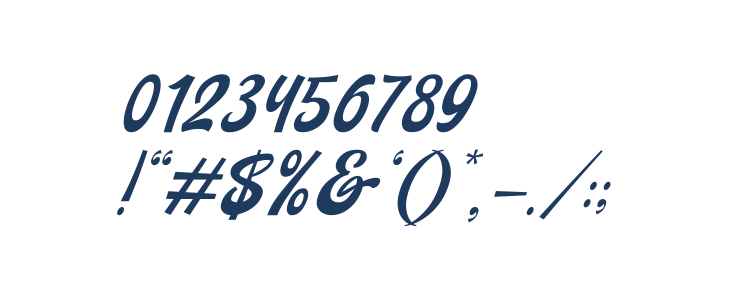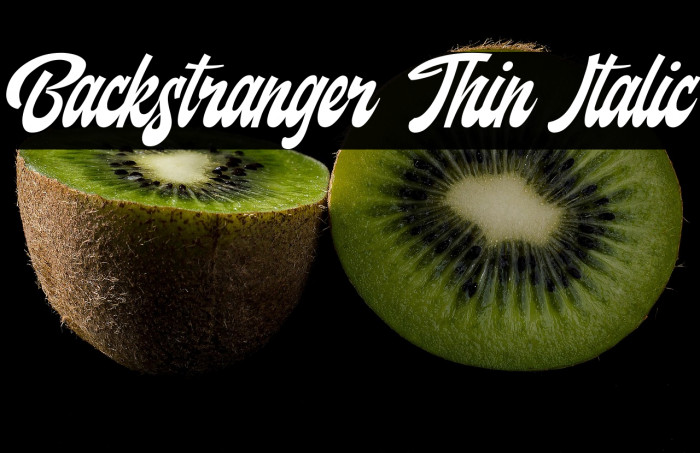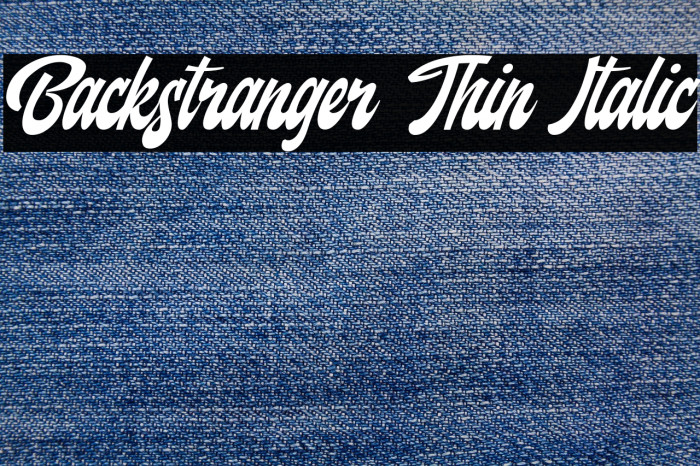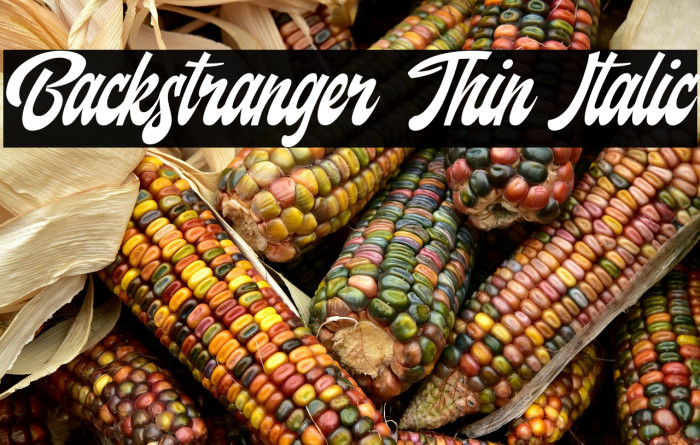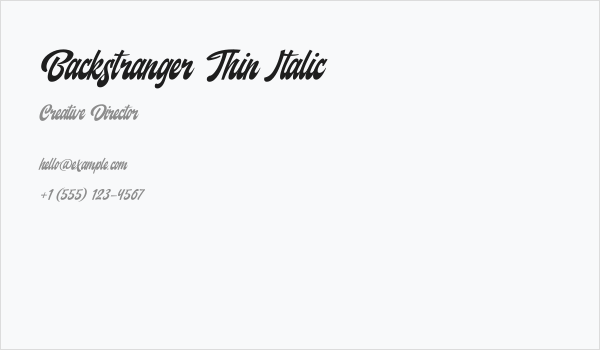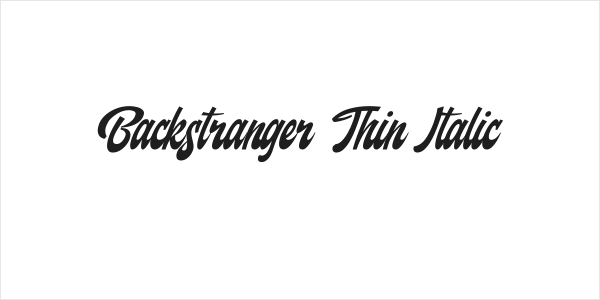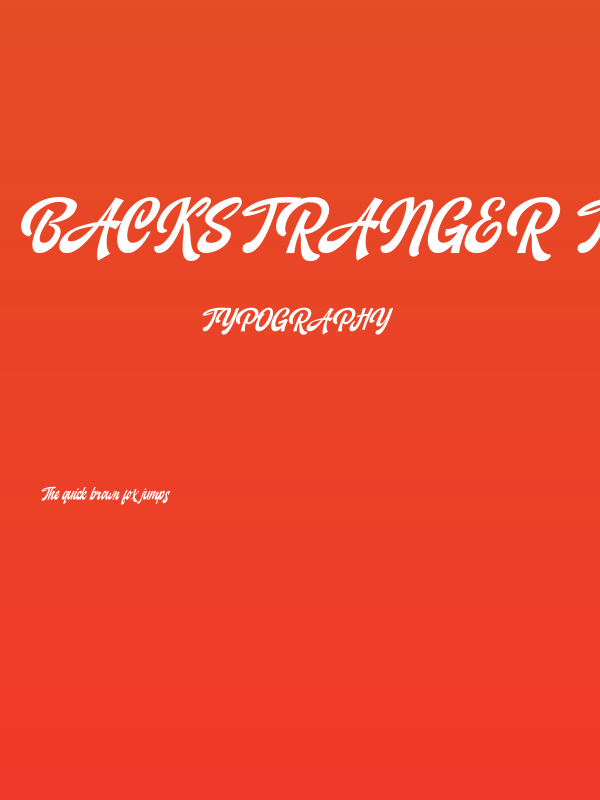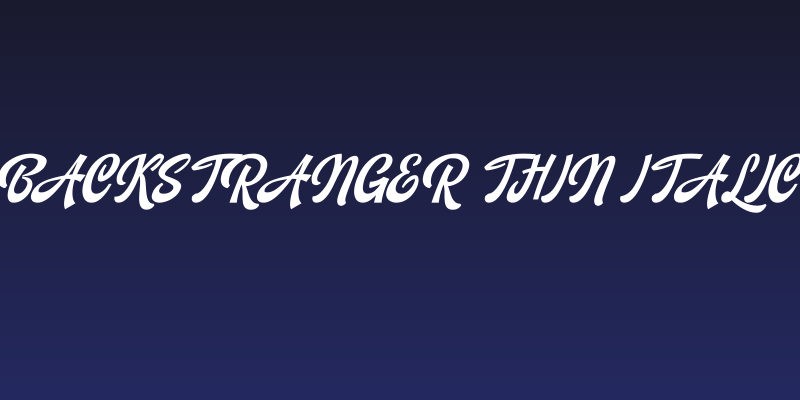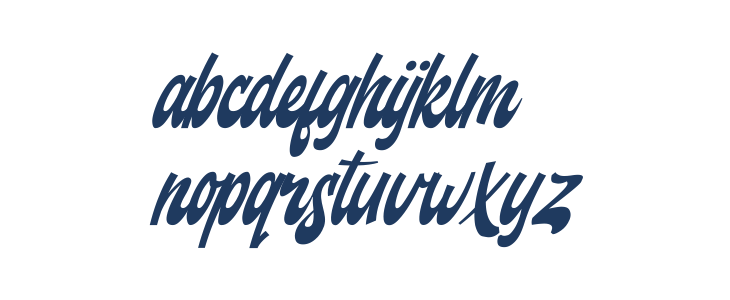
Backstranger Thin Italic Font
Backstranger Thin Italic Description
This font features a dynamic and expressive script style with a pronounced slant, giving it an italicized appearance. The characters are bold and fluid, with smooth, flowing lines that create a sense of movement and elegance. The uppercase letters are particularly striking, with sweeping curves and dramatic flourishes, while the lowercase letters maintain a consistent style with slightly more restrained embellishments. The numbers and special characters are equally well-crafted, ensuring a cohesive look across all elements. This font's boldness and unique style make it ideal for projects that require a strong visual impact.